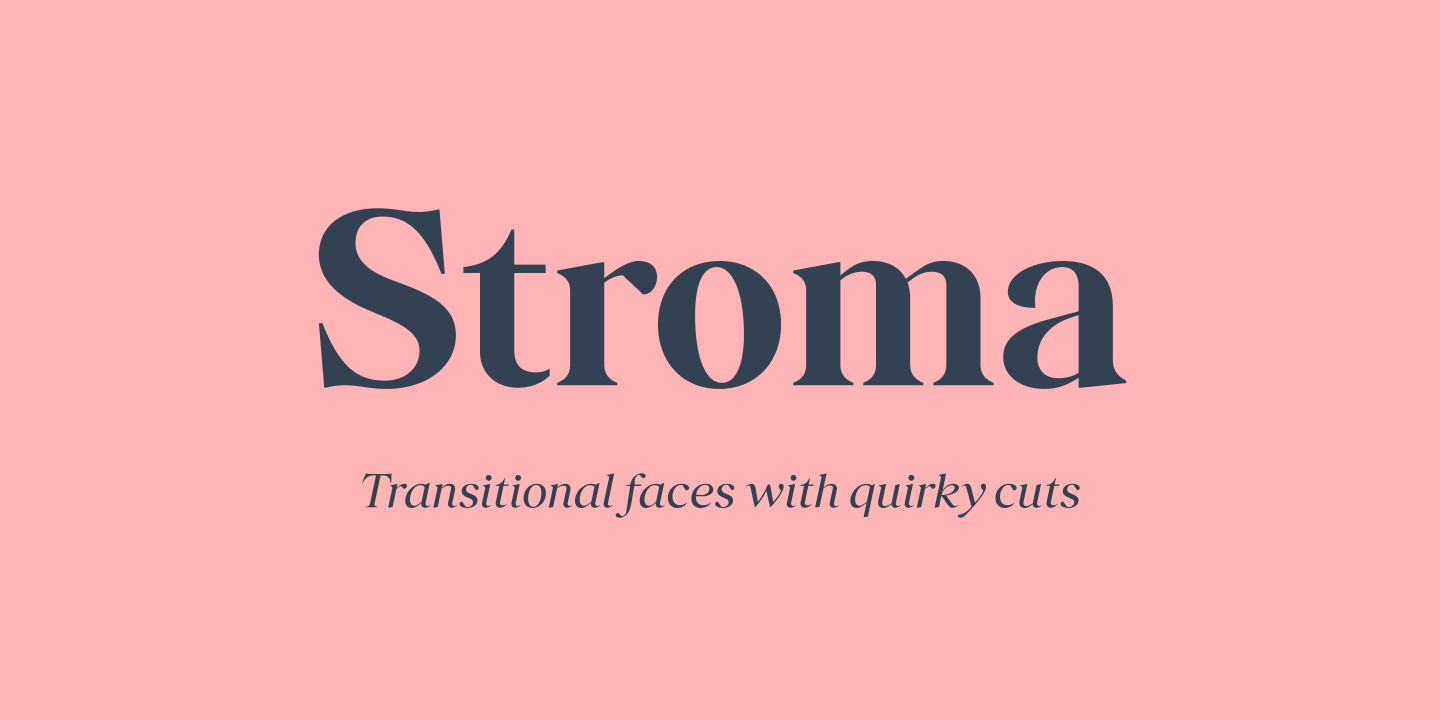
Stroma Font is perfect for scientific publication layouts, medical research presentations, biotechnology company branding, pharmaceutical documentation, laboratory signage systems, academic conference materials, research institute identities, and technical communication designs.
Stroma Font is exciting because it masterfully combines scientific precision with structural elegance, featuring letterforms that reflect the intricate organizational patterns found in cellular structures and biological frameworks, embodying the systematic beauty of scientific discovery and the foundational support that enables complex biological processes, making it ideal for projects requiring technical authority and scientific sophistication.
The Stroma Font family includes multiple weights and styles such as Regular, Bold, Light, Thin, and Condensed versions, providing designers with comprehensive options for creating systematic typographic hierarchies that maintain the scientific aesthetic across various research, medical, and educational applications.
Stroma Font Free Download offers designers access to a meticulously crafted typeface that embodies the structural foundation of scientific communication and medical research excellence. This exceptional font captures the essence of systematic organization and the precise methodology that drives breakthrough discoveries, creating a powerful tool for institutions and organizations dedicated to advancing human knowledge through rigorous scientific inquiry.
The font's precisely engineered letterforms feature clean proportions and structural clarity that mirror the organized complexity found in biological systems and scientific frameworks. Each character has been carefully optimized to work harmoniously within technical compositions, ensuring that Stroma Font delivers exceptional readability while maintaining the authoritative character that makes it so effective in academic and professional scientific applications.
Professional designers working with research institutions and healthcare organizations appreciate this font's ability to convey credibility and scientific rigor. The typeface excels in applications where technical accuracy meets clear communication, from medical journal publications to biotechnology presentations, from laboratory documentation to academic conference materials.
The comprehensive character set includes scientific symbols and mathematical notation support, making it particularly suitable for technical publications while preserving its distinctive structural character. Whether used for research papers, medical documentation, or scientific presentations, this font delivers consistent visual authority that enhances professional credibility and academic recognition.
Creative professionals in the scientific and medical fields have embraced Stroma Font for its unique ability to bridge technical precision with accessible communication. Its versatility allows it to adapt seamlessly to both highly specialized scientific contexts and public health communications while maintaining its systematic clarity and professional integrity.
This remarkable typeface has become an essential tool for designers who understand that scientific communication requires typography that reflects the precision and reliability of research methodology. Its ability to instantly communicate scientific authority and structural soundness makes it invaluable for organizations operating in competitive research and healthcare environments.